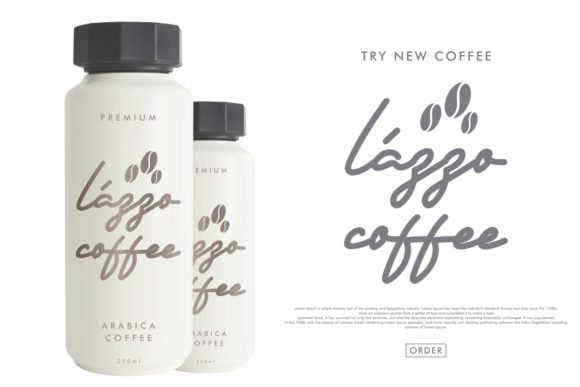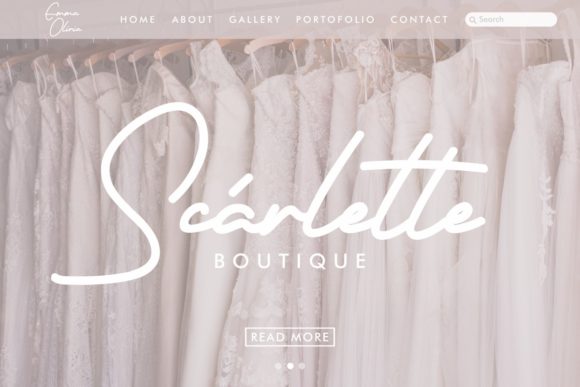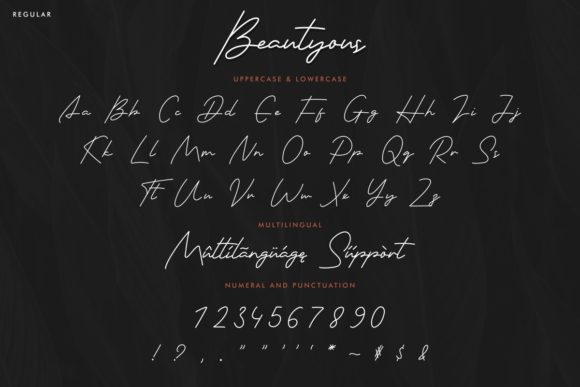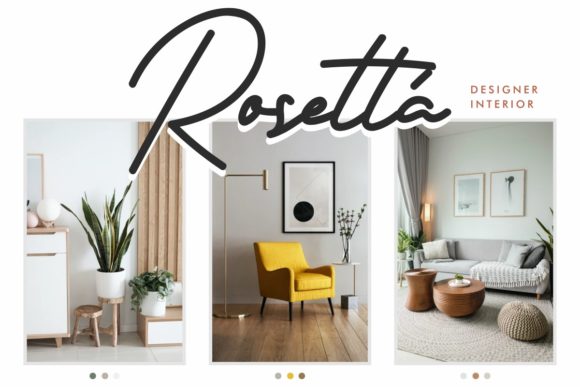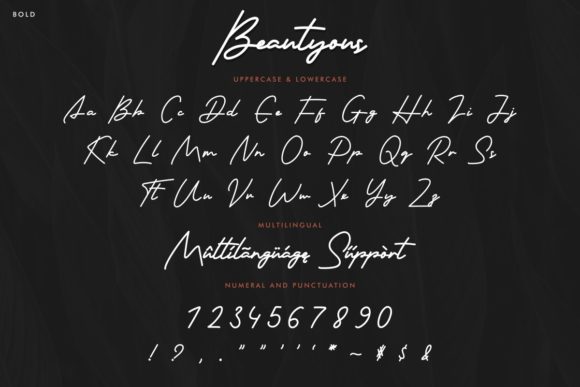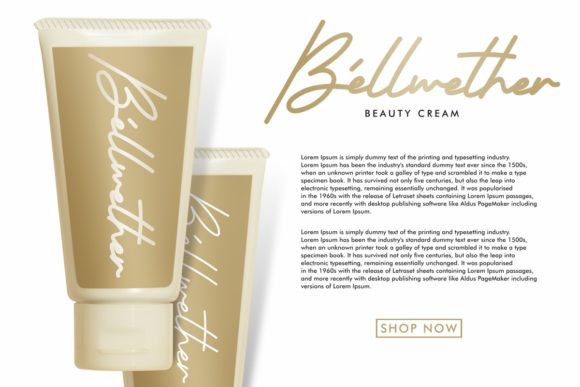
Discover the Timeless Elegance of the Beautyous Font
Have you ever been stuck on a design project, staring at a blank page, waiting for inspiration to strike? For many designers, it’s that moment of creative block where the perfect font can be the game-changer. For me, it was the moment I stumbled upon the Beautyous Font – a beautiful and refined script font that has since become a go-to choice for my projects.
The Beautyous Font is a masterclass in elegance and sophistication, designed to add a touch of class to any design. Whether you’re creating logos, branding materials, invitations, or social media posts, this font is sure to make a lasting impression. Its versatility and modern look make it a valuable asset for designers looking to elevate their work.
With its classy, elegant design, the Beautyous Font is a must-have for any designer’s toolkit. Its beauty lies not just in its aesthetic appeal but also in its versatility, making it perfect for a wide range of projects and applications.
Key Features of Beautyous Font
- Unique Characteristics: The font features a unique blend of elegant and modern design elements, with intricate details and subtle texture, giving it a distinctive and sophisticated look.
Review of Beautyous Font
Overall, I’d say Beautyous Font is a unique and eye-catching choice for digital designs. ✨ The font’s bold and elegant style is sure to grab attention, making it perfect for titles and headings. The font’s versatility is also a major plus, as it can be easily paired with a wide range of other fonts to create visually appealing combinations.
However, I do have some reservations about Beautyous Font. ⚠️ Firstly, the font can be quite difficult to read at smaller sizes, which may make it less suitable for body text or smaller designs. Additionally, the font’s unique style can sometimes feel overwhelming or even gaudy, especially when used in excess.
What I Like:
- Unique and bold style
- Versatile and easy to pair with other fonts
- Eye-catching and attention-grabbing
What I Don’t Like:
- Difficult to read at smaller sizes
- Can feel overwhelming or gaudy when used in excess
Overall, I’d say Beautyous Font is a solid choice for designers who want to add some flair to their digital designs. While it may not be the best choice for every project, it’s certainly worth considering when looking for a unique and attention-grabbing font.
Beautyous Font is ideal for:
- Brand logos and typography.
- Editorial and publishing designs.
- Stationery and business cards.